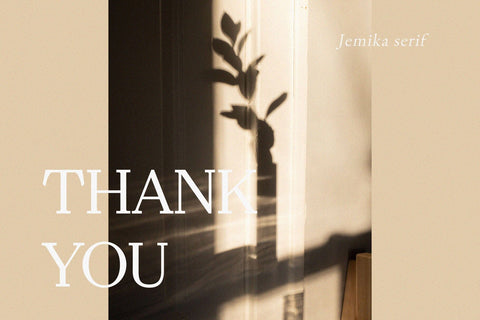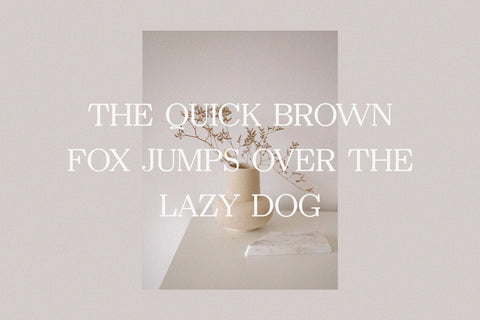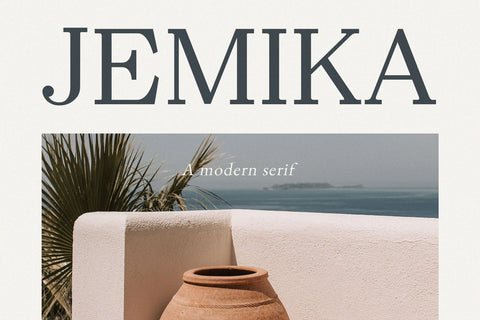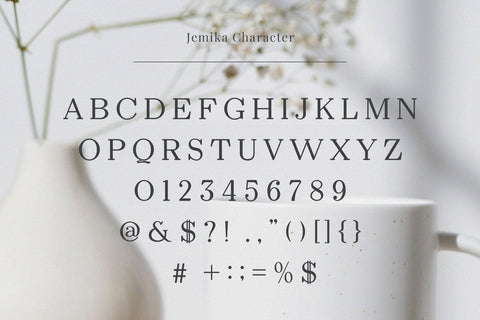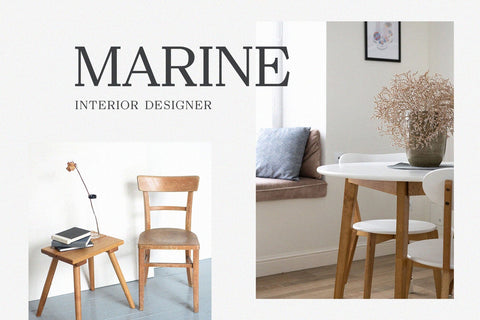
Jemika - Modern Serif Font
Introducing our new Jemika, modern serif font with elegant style this is perfect for branding, logos, invitation, magazines, product packaging and more.